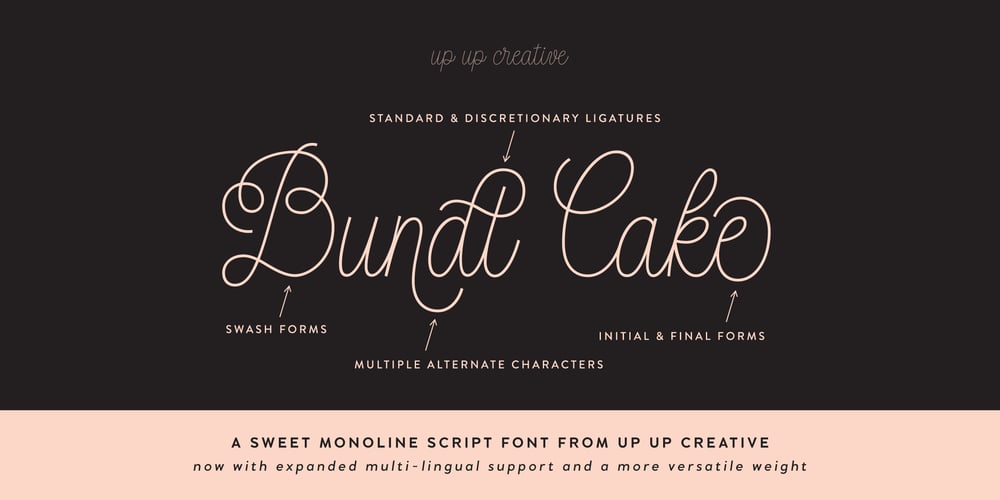
Bundt Cake Font Family was designed by Julie Green and published by Up Up Creative. Bundt Cake contains 1 styles and family package options. Introducing Bundt Cake, a sweet, modern mono-line script display font with tons of OpenType features.Bundt Cake comes with more than eleven hundred glyphs! Specific OpenType features include contextual alternates, swash forms, stylistic alternates, initial and final forms, multiple alternate glyphs for each letter (accessed through the glyphs panel), multilingual support (including multiple currency symbols), two ampersands, ninety standard and discretionary ligatures, a bunch of hearts and arrows, and standard numbers, oldstyle figures, and fractions.The OpenType features can be very easily accessed by using OpenType-savvy programs such as Adobe Illustrator and Adobe InDesign. (To access these awesome features in Microsoft Word, you’ll need to get comfortable with the advanced tab of Word’s font menu. If you need help with this, ask me!)Perfect for: logos, wedding invitations, photo overlays, and more.